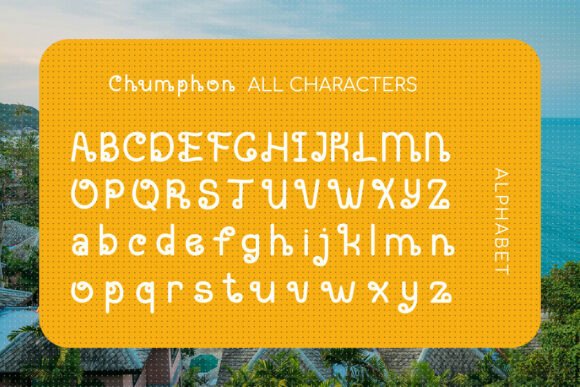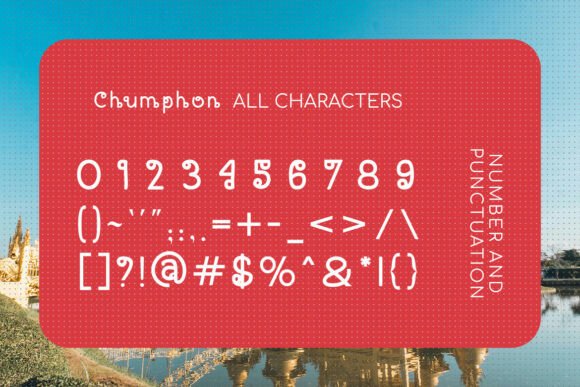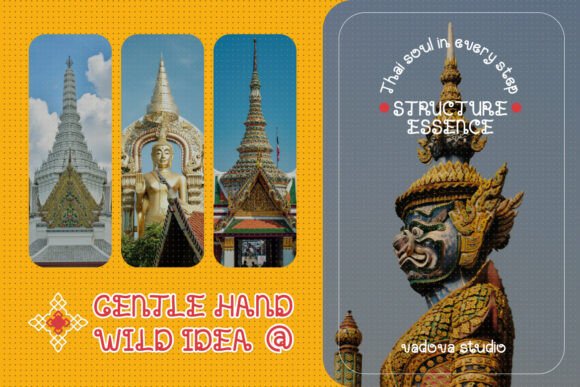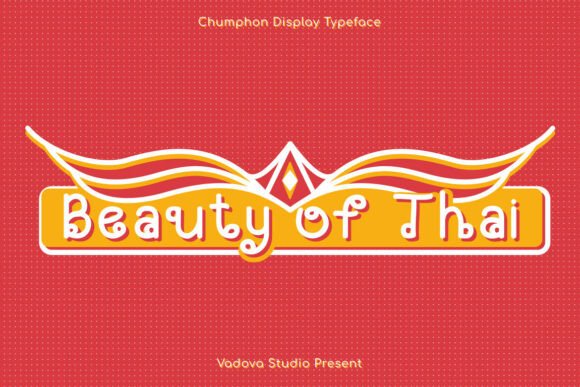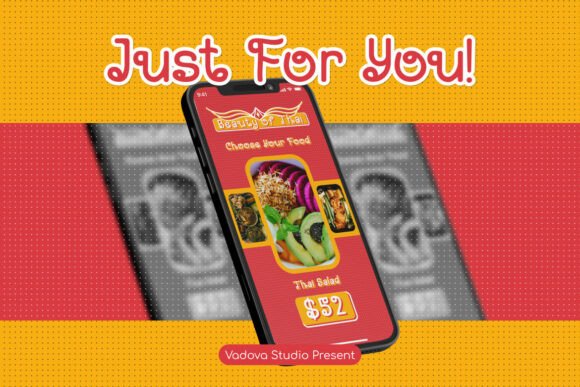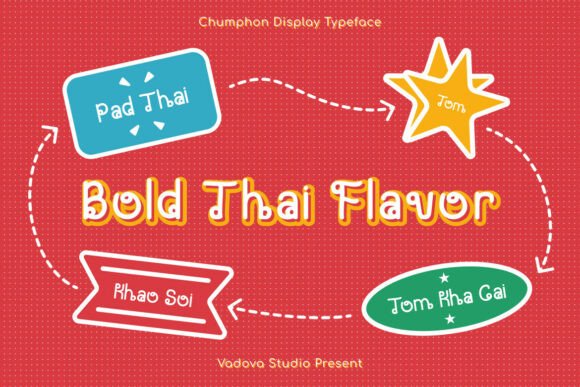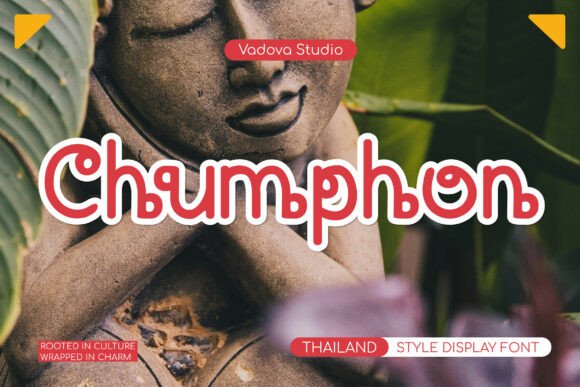
Introducing Chumphon Font: A Playful Display Typeface Inspired by Thai Cultural Aesthetics
In the world of typography, fonts play a crucial role in conveying the tone and personality of a brand or design. For designers and crafters looking for a unique and expressive typeface, Chumphon Font is an excellent choice. This playful display typeface is inspired by Thai cultural aesthetics, featuring rounded forms, soft curves, and whimsical terminals that create a friendly and expressive visual tone.
The Inspiration Behind Chumphon Font
Chumphon Font draws inspiration from the rich cultural heritage of Thailand, incorporating traditional elements into its design. The typeface’s rounded forms and soft curves evoke a sense of warmth and approachability, while its whimsical terminals add a touch of playfulness. This unique blend of characteristics makes Chumphon Font an excellent choice for designers looking to add a personal touch to their work.
Design Characteristics of Chumphon Font
Chumphon Font boasts a range of design characteristics that make it stand out from other typefaces. Its organic shapes and charming personality make it perfect for use in vibrant layouts, while its cohesive typographic rhythm ensures that it remains legible even in complex designs. The typeface features:
- Rounded forms and soft curves for a friendly and approachable feel
- Whimsical terminals for added playfulness and personality
- Organic shapes that evoke a sense of warmth and approachability
- A cohesive typographic rhythm for improved legibility
Intended Use and Font Formats
Chumphon Font is intended for display use, making it perfect for headlines, titles, and other attention-grabbing elements. While it’s not optimized for long-form body text, it’s ideal for designers looking to add a touch of personality to their work. The typeface is delivered in high-quality font formats, ensuring that it can be used across a range of applications and platforms.
Chumphon Font offers a range of benefits for designers and crafters, including:
- A unique and expressive typeface that adds personality to designs
- A versatile typeface that can be used across a range of applications and platforms
- A cohesive typographic rhythm for improved legibility
Tips for Using Chumphon Font
To get the most out of Chumphon Font, designers and crafters can follow these tips:
- Use Chumphon Font as a display typeface to add emphasis and personality to designs
- Experiment with different font sizes and colors to create visual interest
- Pair Chumphon Font with other typefaces to create a unique and expressive typographic style
- Use Chumphon Font in digital and print applications, including signage, packaging, and marketing materials
Chumphon Font is a playful display typeface that offers a unique and expressive way to add personality to designs. Inspired by Thai cultural aesthetics, this typeface features rounded forms, soft curves, and whimsical terminals that create a friendly and expressive visual tone. With its organic shapes, charming personality, and high-quality font formats, Chumphon Font is an excellent choice for designers and crafters looking to add a touch of whimsy to their work.